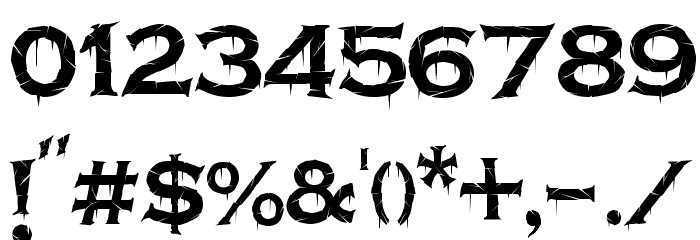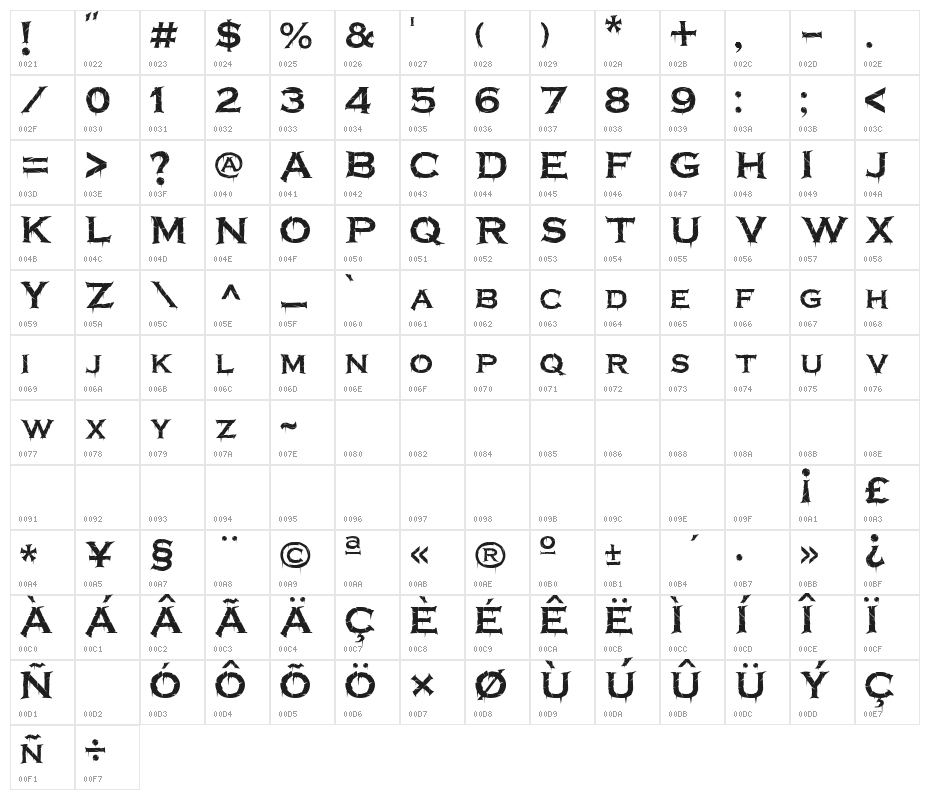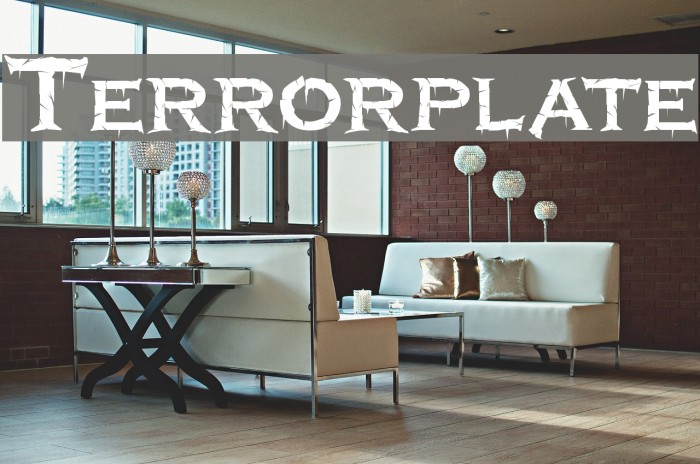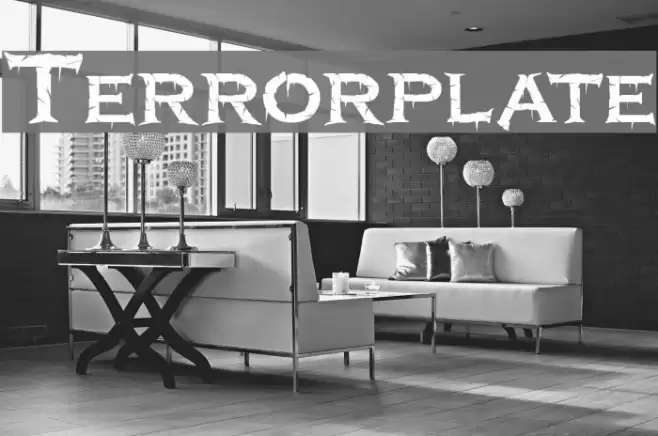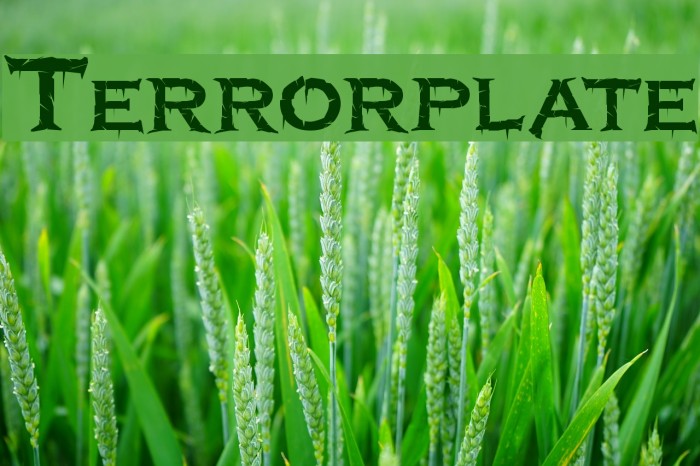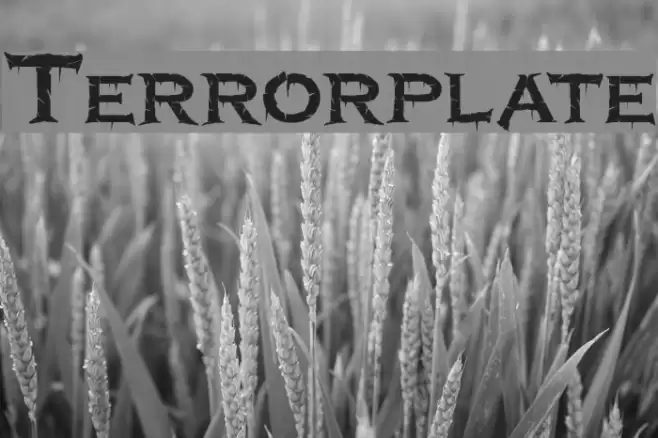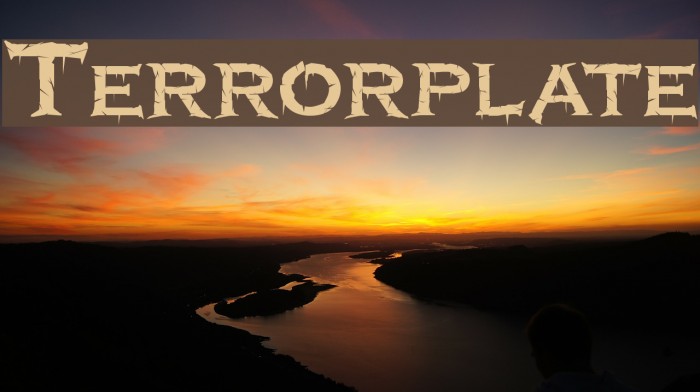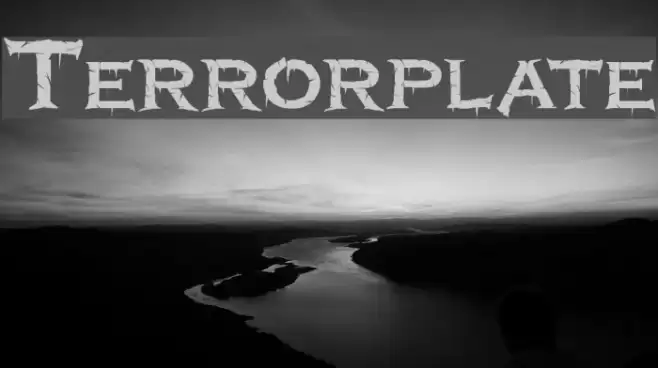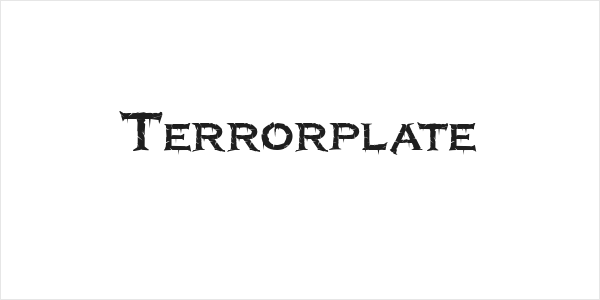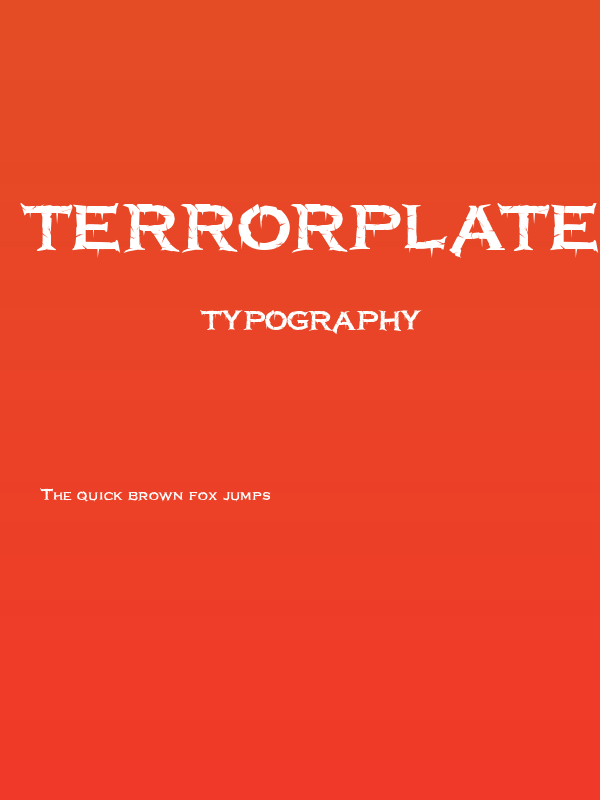
Terrorplate Font
Terrorplate Description
This font features a bold and aggressive design with sharp, jagged edges that resemble thorns or spikes. The characters are heavily stylized, giving off a menacing and intense vibe, perfect for horror or thriller themes. The uppercase and lowercase letters maintain a consistent style, with the uppercase being slightly more pronounced. Numbers and special characters follow the same design principles, ensuring uniformity across all glyphs. The font's unique aesthetic makes it stand out, ideal for projects that require a dramatic and eye-catching typeface.
| Proposed Projects | Ideal for horror movie posters, Halloween event flyers, video game titles, and any project needing a dramatic, edgy typeface. |